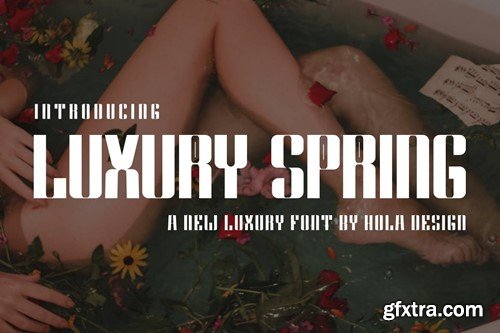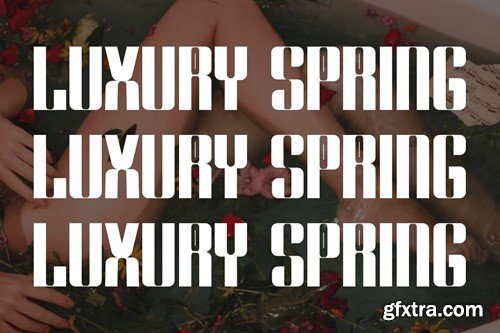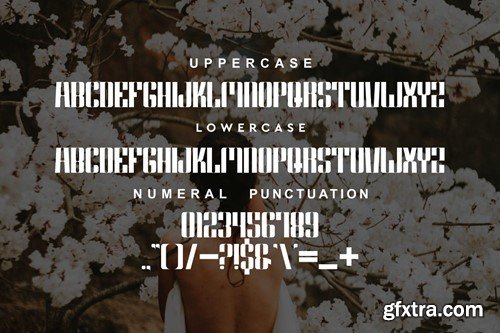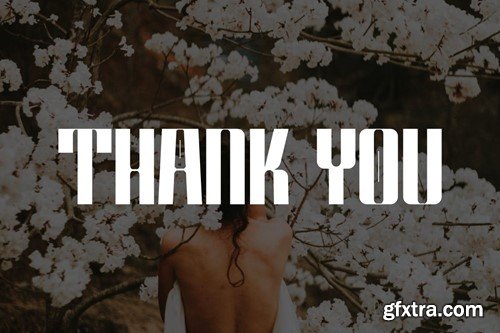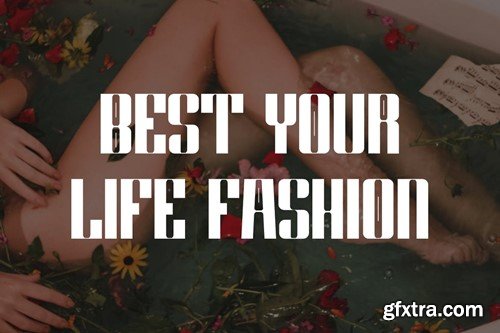
Luxury Spring - 豪华春 - 豪华且优雅的字体 DV9TAN6
Luxury Spring - Luxury & Elegant Font DV9TAN6
Luxury Spring - Luxury & Elegant Font
Luxury Spring - Luxury & Elegant Font Font is unique . Ready to use for your design like labeling, movie sceen, poster, movie title, gigs, album covers, logos, and much more.